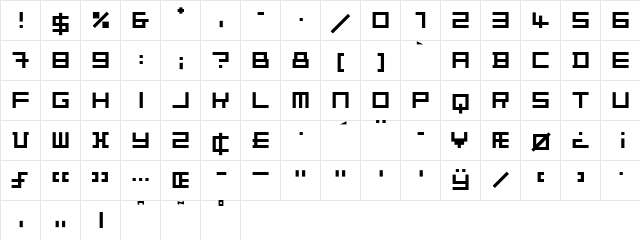
VanDoesburgAT plain
Design Context for VanDoesburgAT Typeface
VanDoesburgAT takes a measured approach to typography — its balanced proportions and neutral character make it a reliable workhorse for both digital and print work.